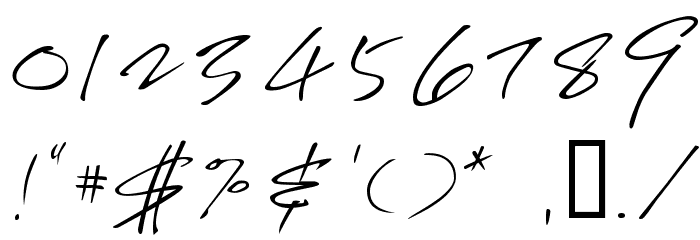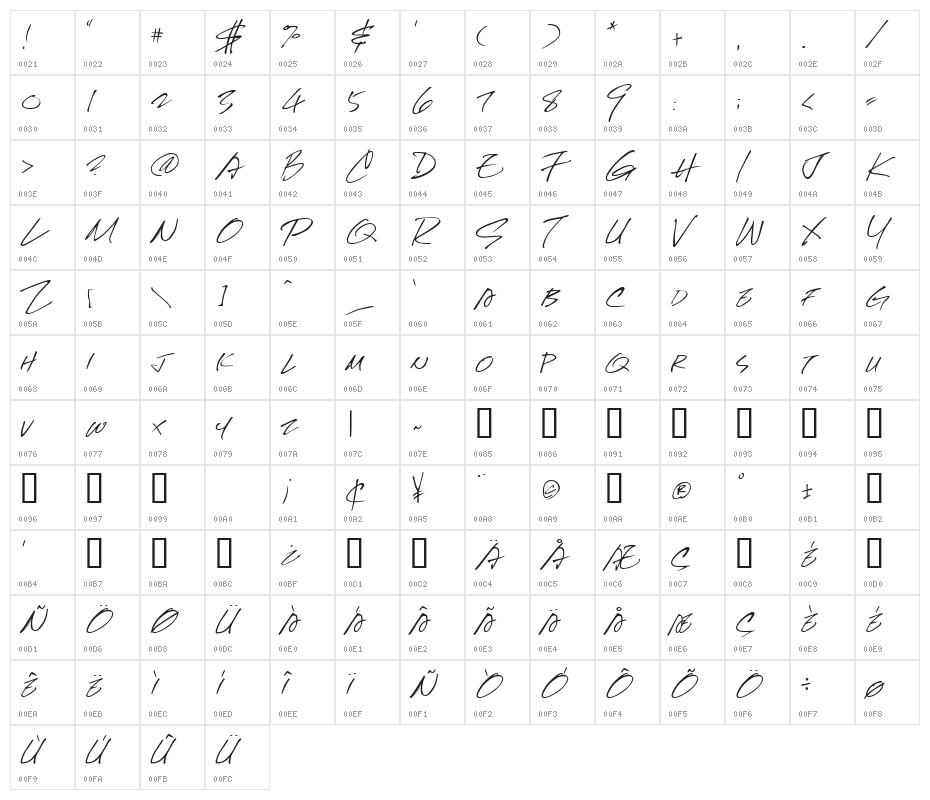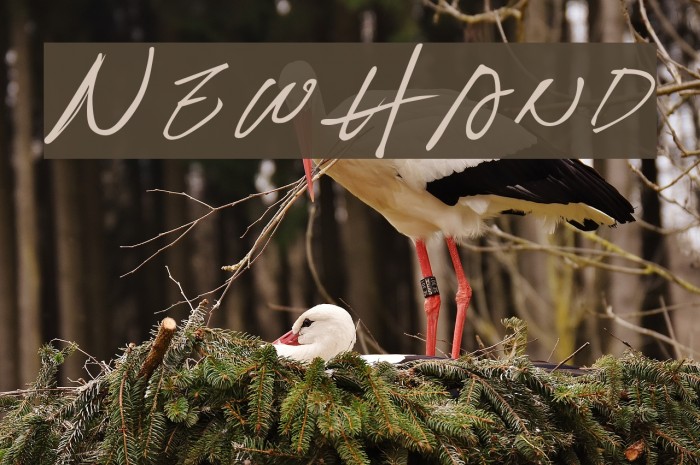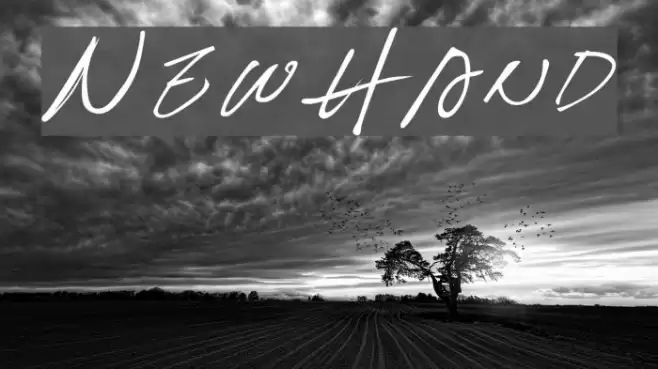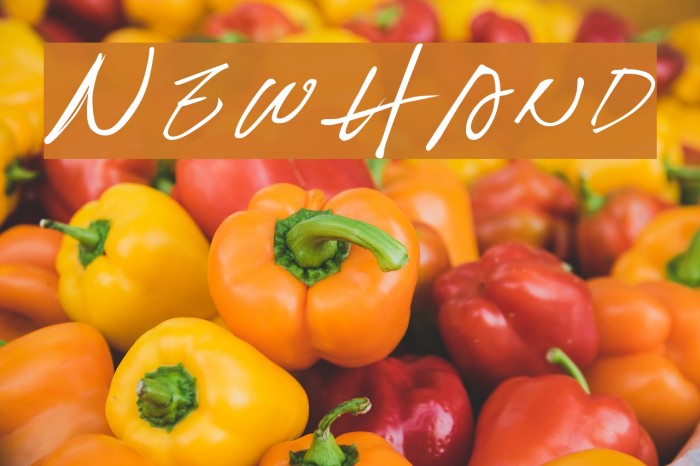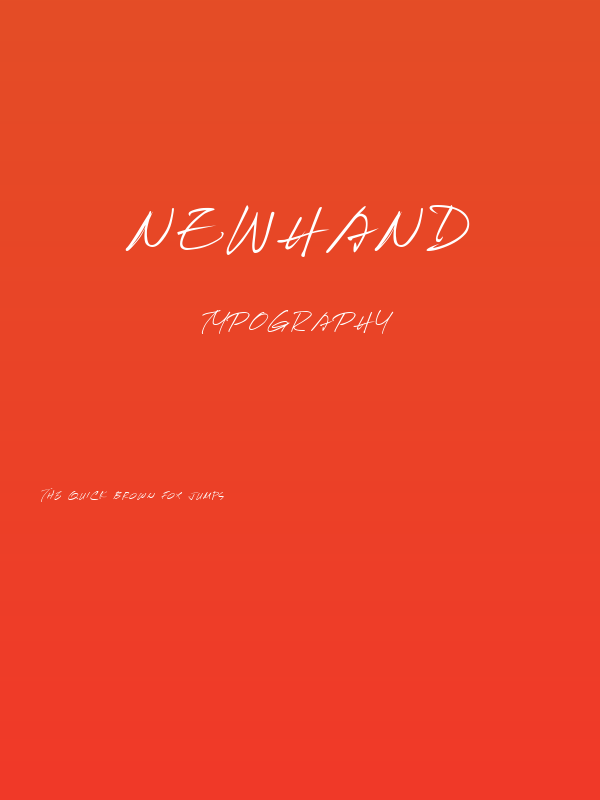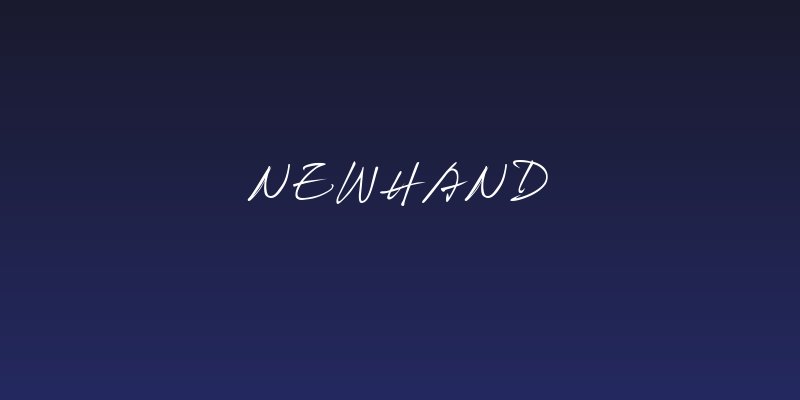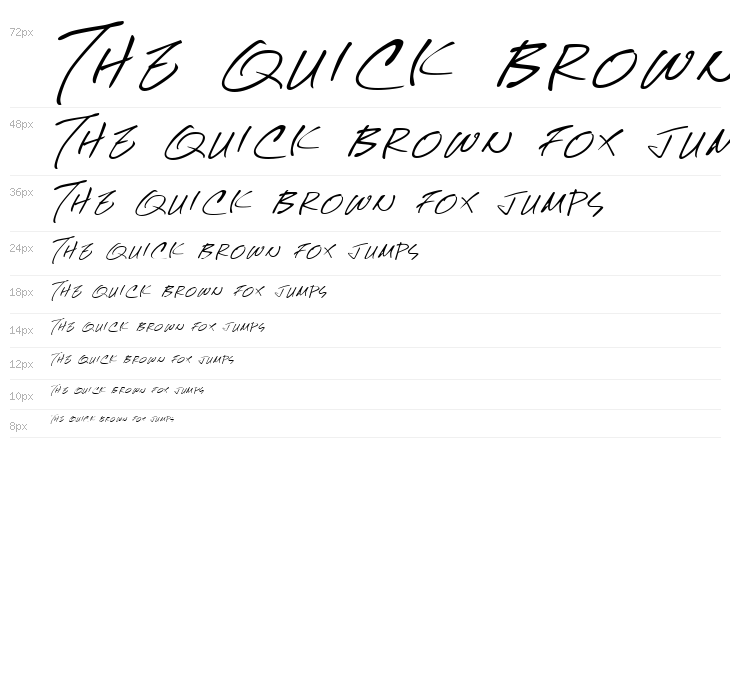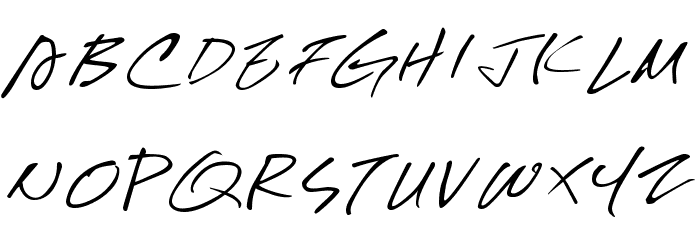
NewHand Font
NewHand Description
This font exhibits a dynamic and fluid handwritten style, characterized by its cursive and slightly slanted letterforms. The strokes are smooth and continuous, giving it an elegant and personal touch. The uppercase and lowercase letters maintain a consistent flow, with some letters featuring distinctive loops and curves. The numerals are clear and maintain the same fluidity as the alphabetic characters. Special characters are integrated seamlessly, enhancing the font's versatility. The overall appearance is both modern and expressive, making it suitable for creative and informal applications.